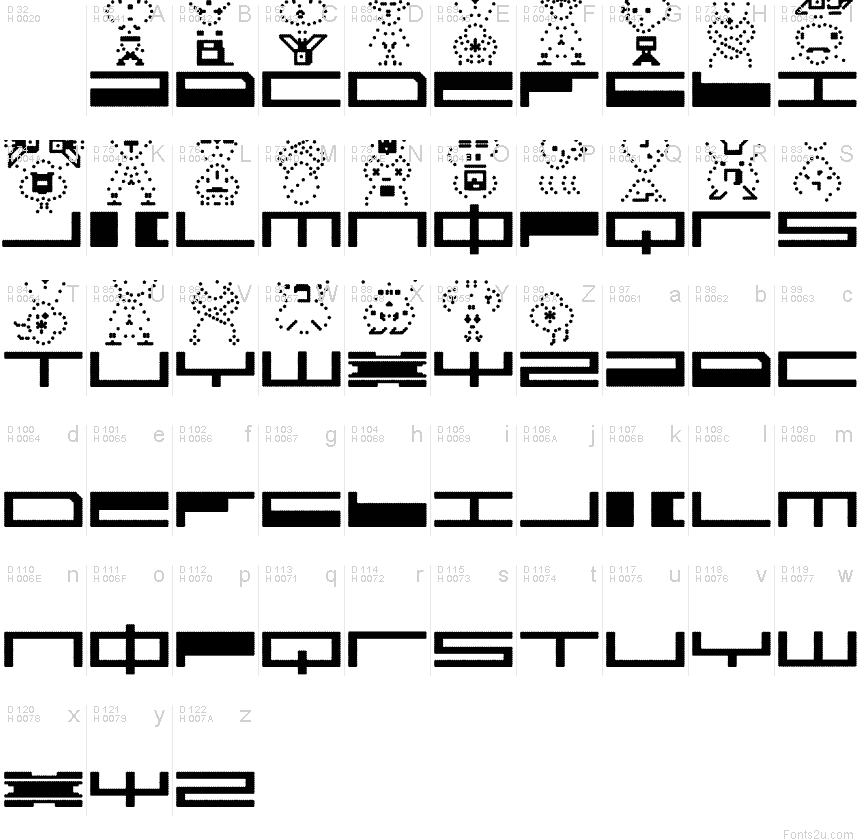
N.E. The Funk King Syndrome by neurone error of FontStruct is a free pixel dingbat font built around abstract game-like symbols. Its compact figures combine solid rectangular bases with loose clusters of tiny square dots, often arranged in vertical, almost mechanical patterns. The sharp grid construction recalls early coin-operated arcade screens and low-resolution computer interface graphics.
Designers working in retro game culture could use it for arcade posters, music merchandise, or digital graphics built around a mysterious coded electronic world. It is especially suited to sci-fi and experimental game themes.